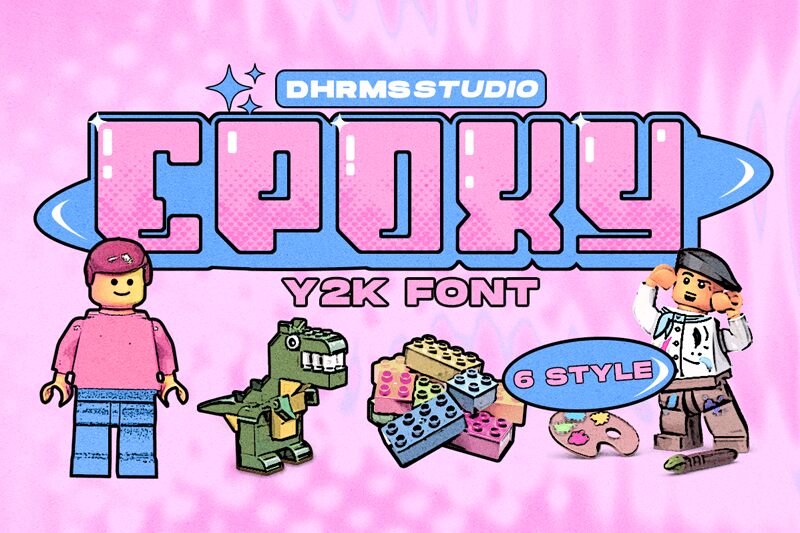
Epoxy DEMO Extrude
Epoxy Extrude is a cutting-edge display font from the Epoxy font family, designed by Dharmas Studio. With its techno style and extra-bold weight, this font delivers a futuristic and dynamic feel to any project.
The unique extruded feature adds depth and dimension, making it perfect for eye-catching headlines, modern logos, or attention-grabbing posters. Its semi-expanded width allows for versatility in layout design, providing balance and emphasis where needed. Whether used in sci-fi movie titles or technology-related branding, Epoxy Extrude brings a bold and captivating presence to your creative endeavors.